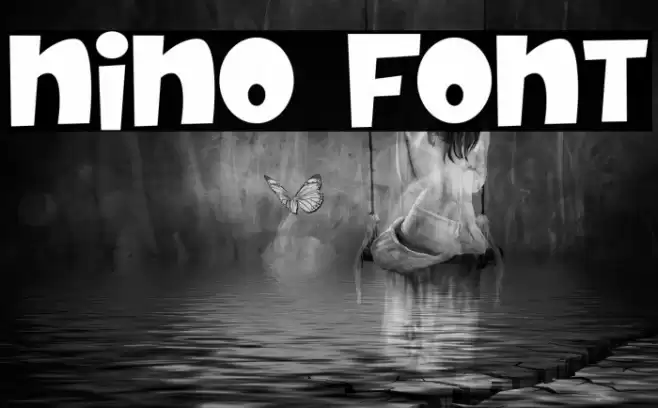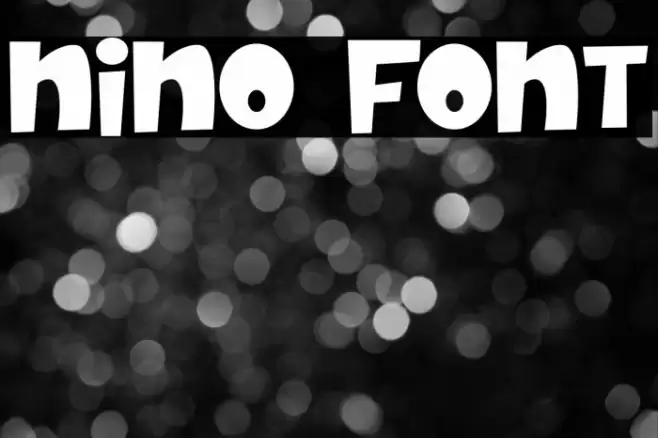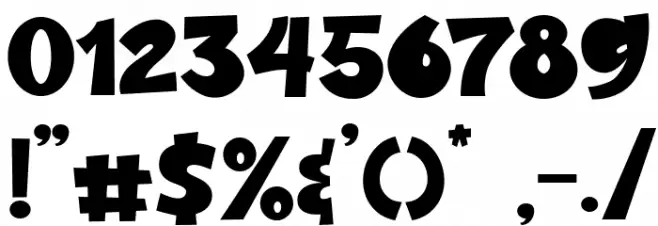
Nino Font
Nino Description
This font features a bold and playful design with exaggerated curves and angles, giving it a dynamic and energetic appearance. The characters are thick and robust, with a slightly irregular shape that adds a whimsical touch. The uppercase and lowercase letters maintain a consistent style, while the numbers and special characters are equally bold and expressive. This font's unique style makes it stand out, offering a sense of fun and creativity.
A bold, playful font with exaggerated curves and a whimsical style from Cartoon fonts.
- Proposed Projects: Ideal for children's books, comic strips, playful branding, and eye-catching posters.
- Overall Style: Playful, Energetic